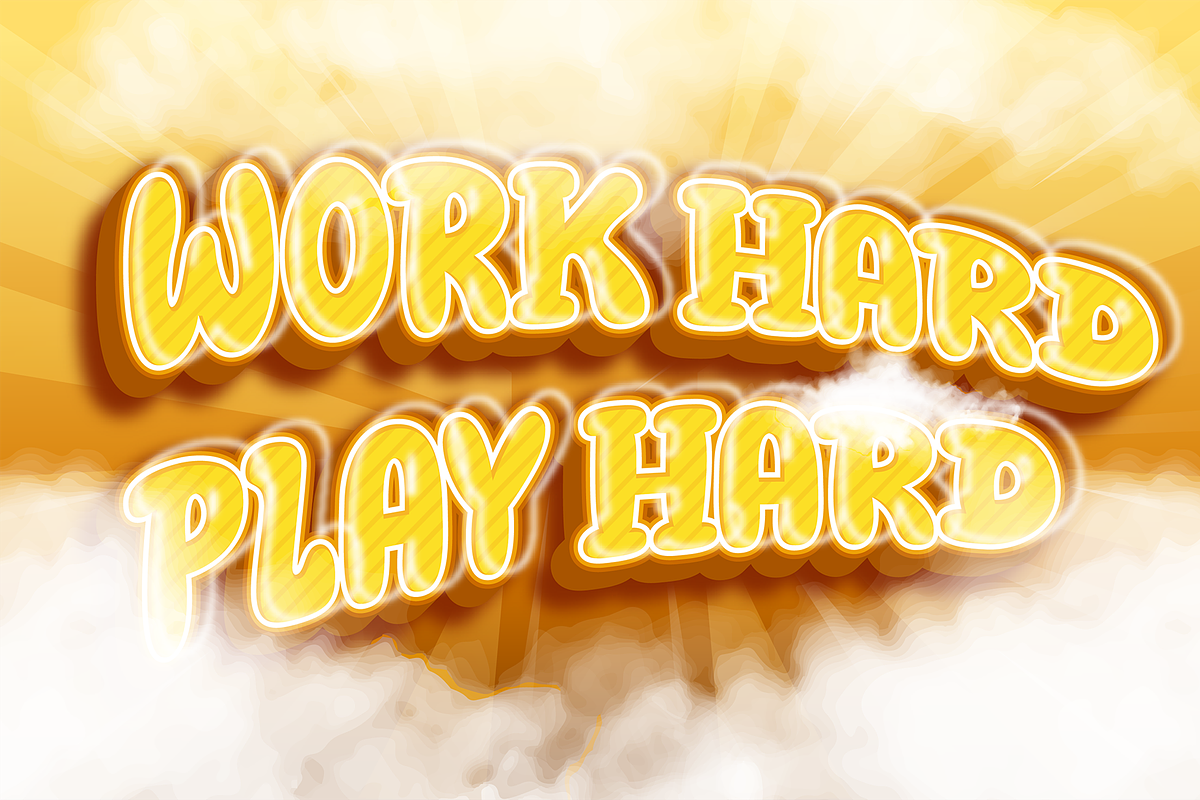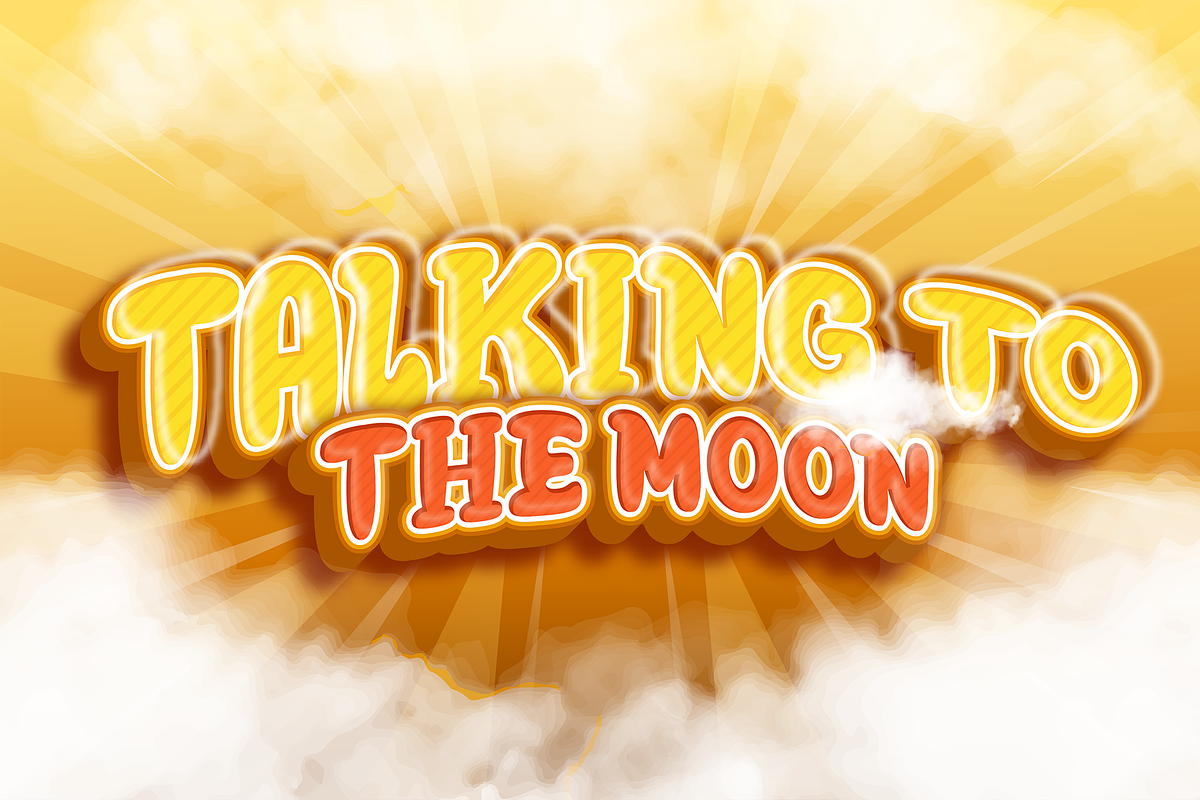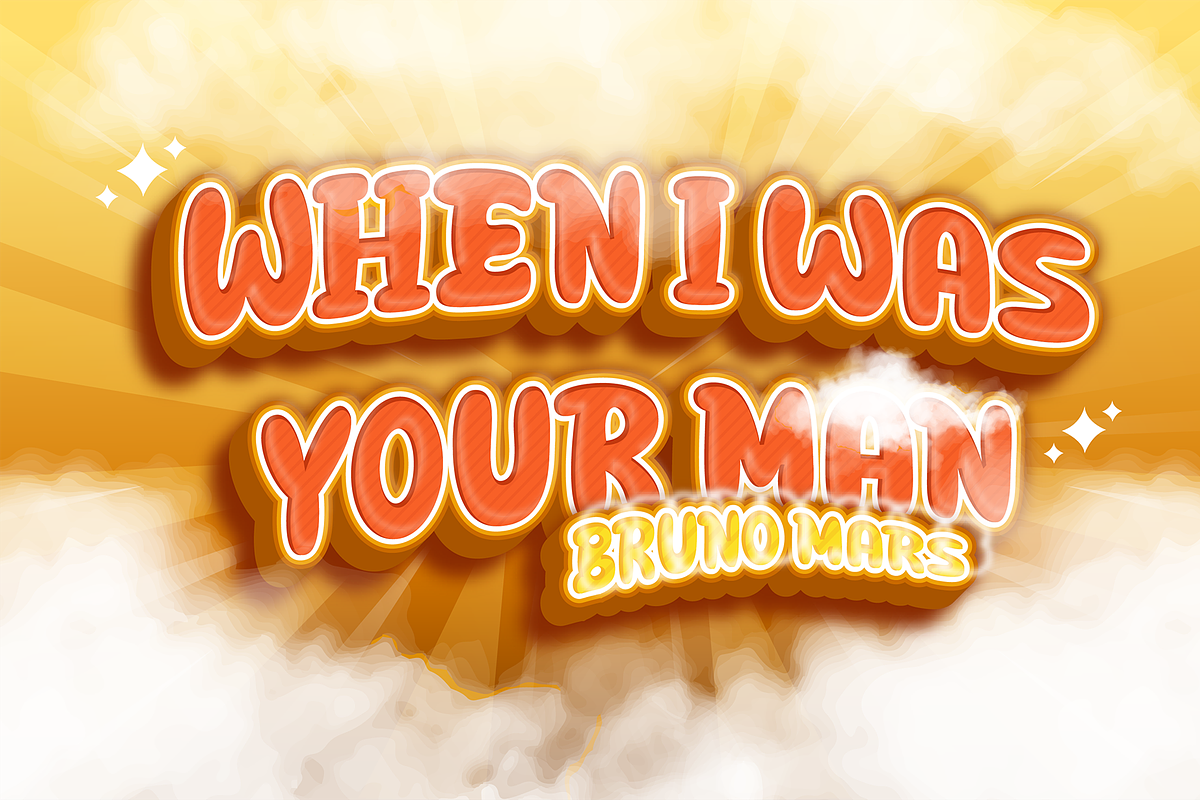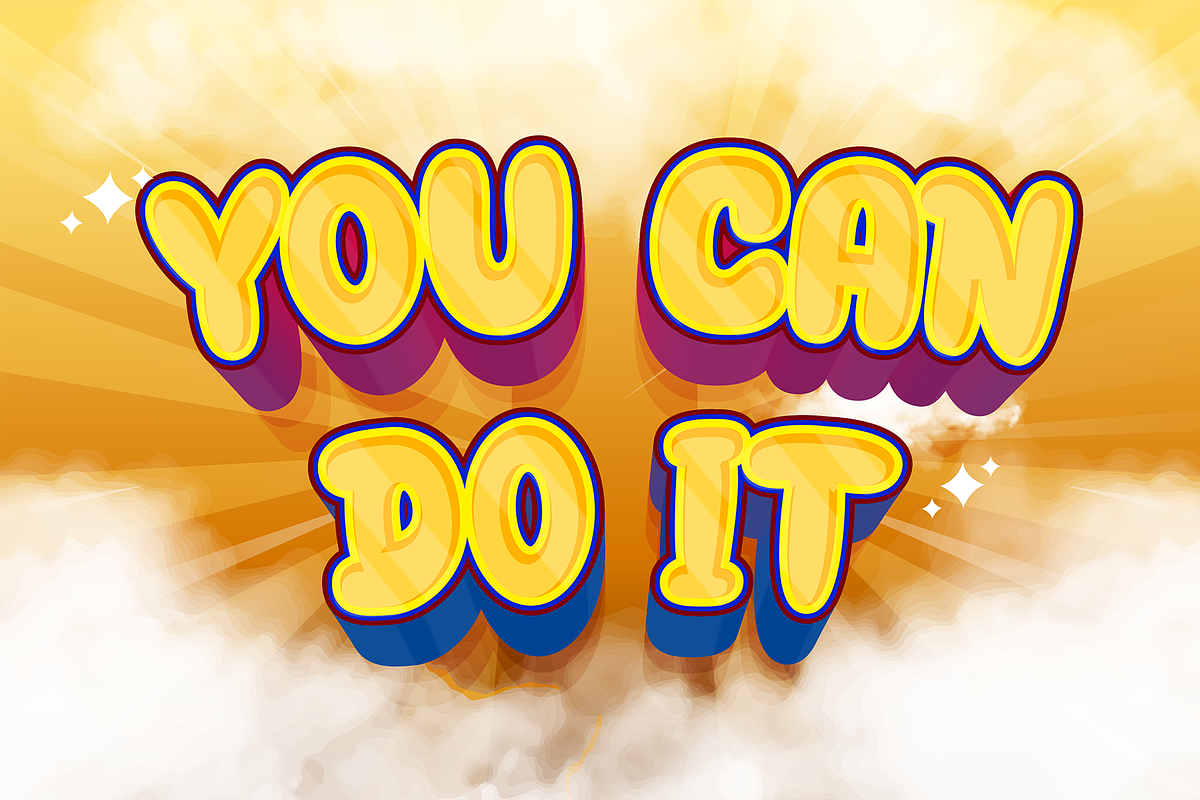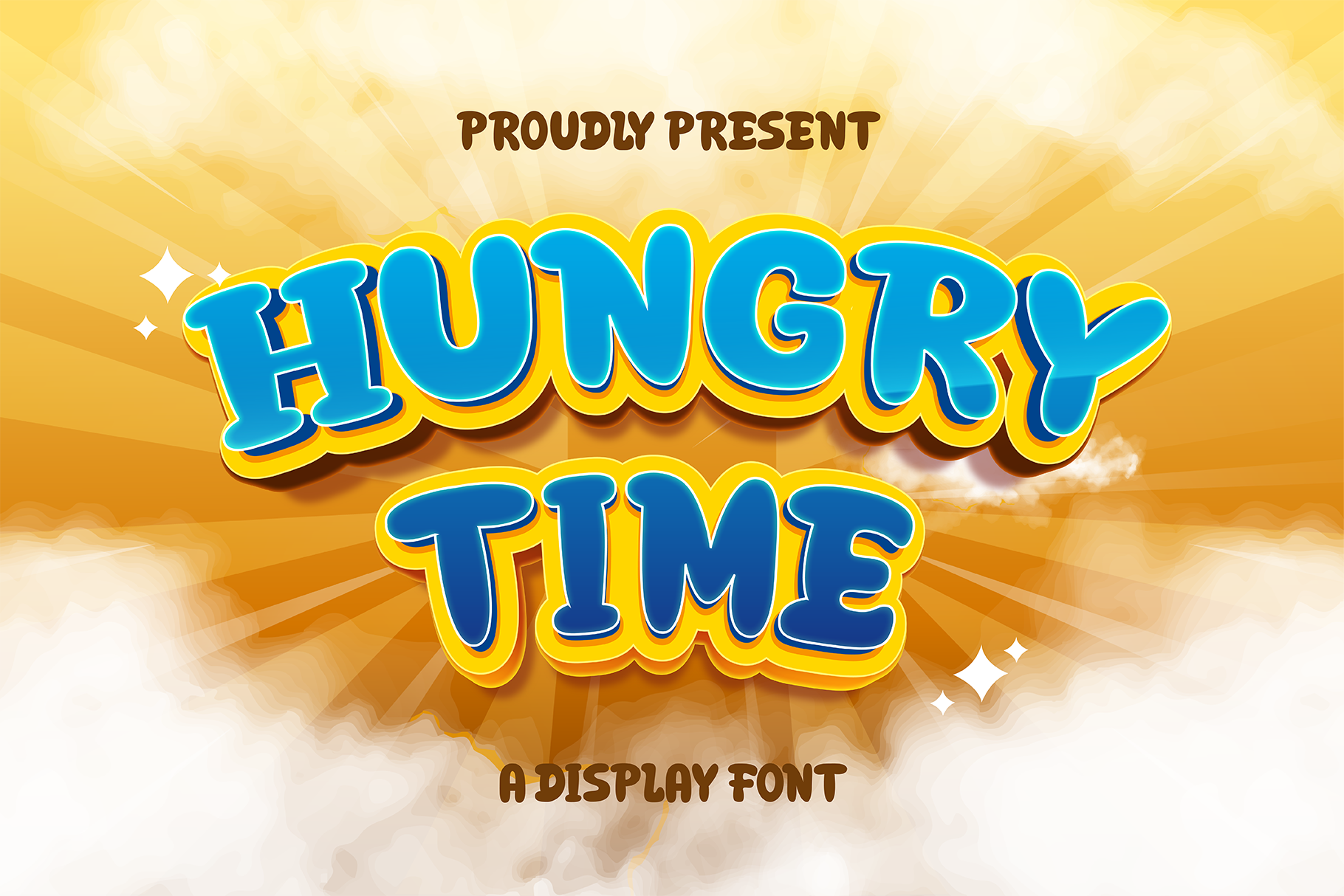
Hungry Time Display Font
Hungry time font is a delightful bubble font, perfect for kids’ projects and children’s activities. Its playful design adds a fun and whimsical touch to any creative endeavor.